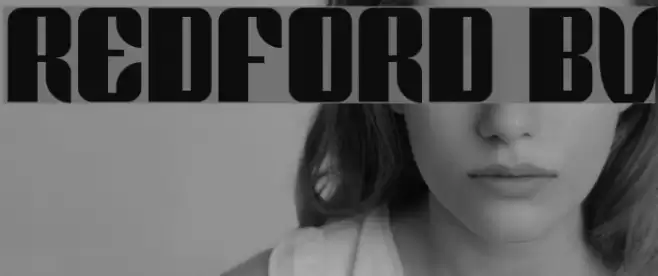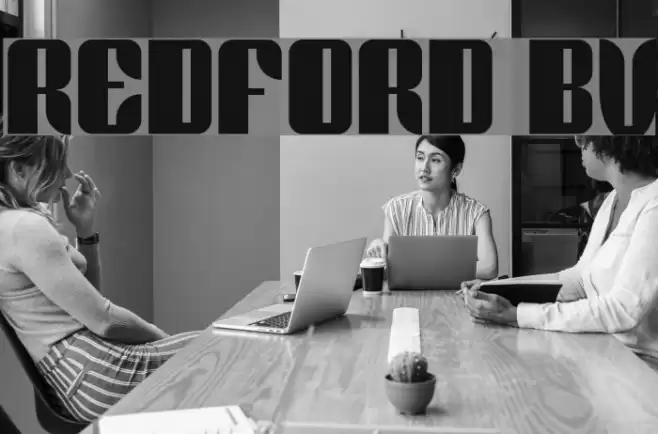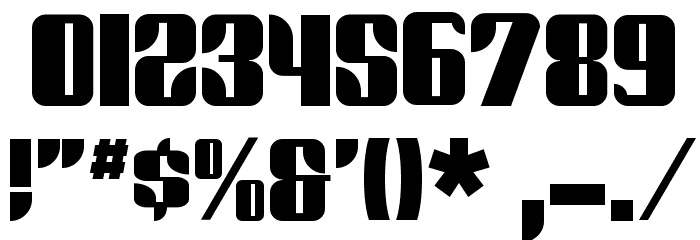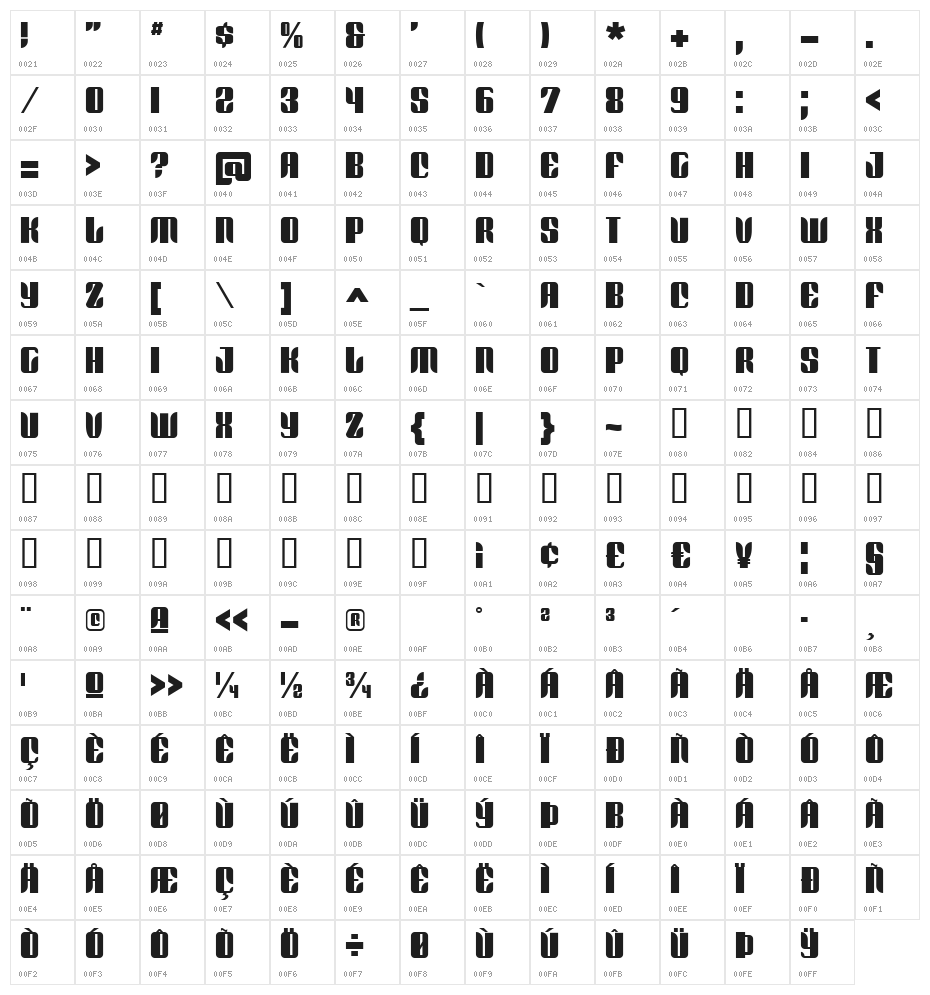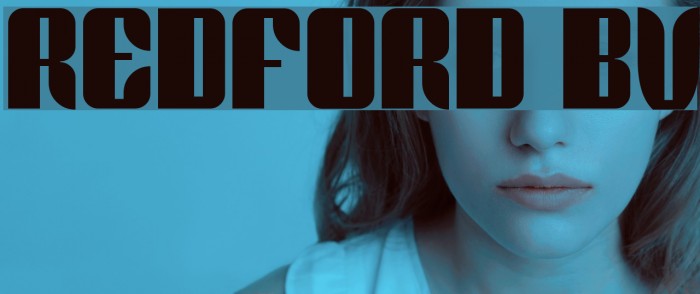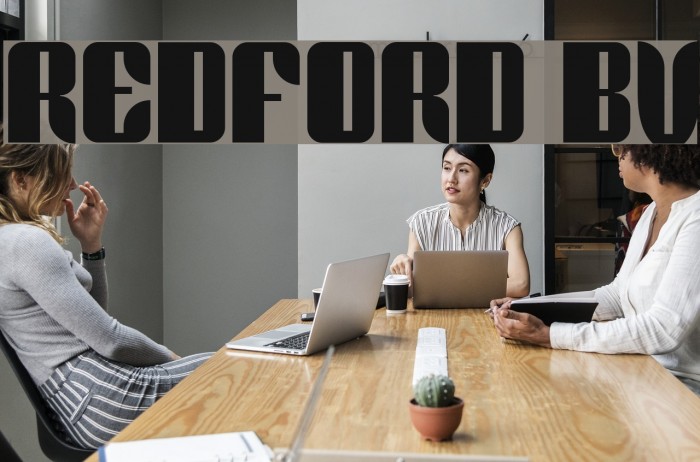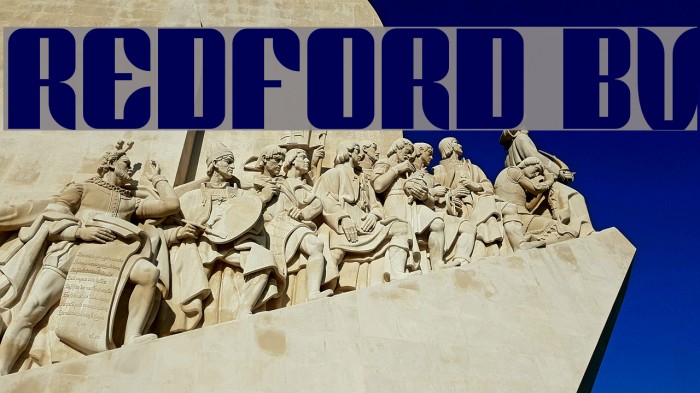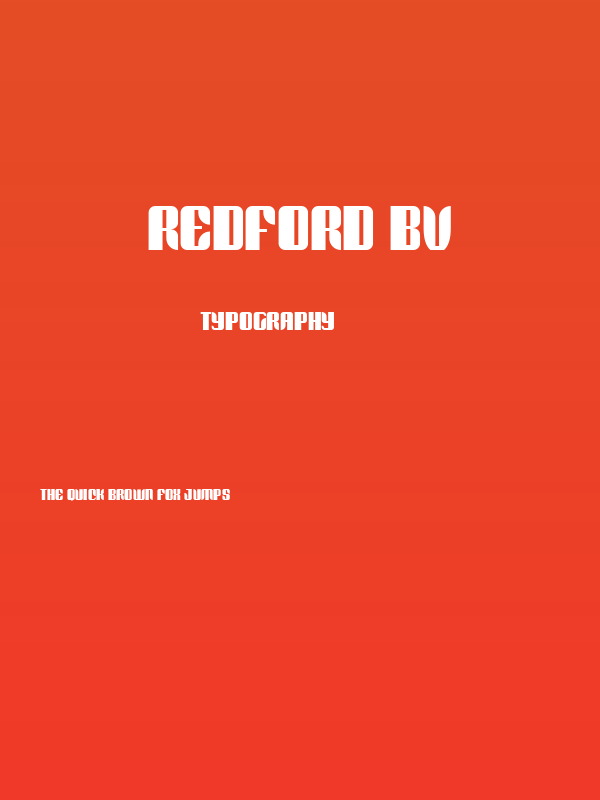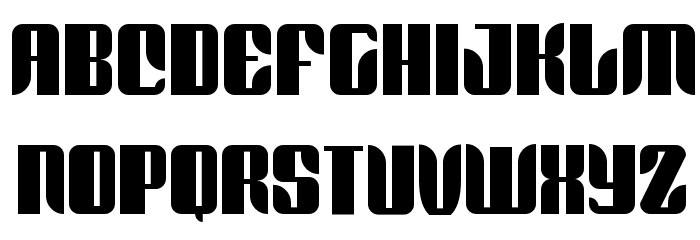
Redford BV Font
Redford BV Description
This font features a bold and striking design with a strong geometric influence. The characters are wide and blocky, with a distinct stencil-like appearance that creates a sense of modernity and strength. The uppercase letters are particularly impactful, with sharp angles and a uniform height that contribute to a cohesive look. The numbers and special characters maintain this bold style, ensuring consistency across all glyphs. The font's unique style makes it suitable for attention-grabbing headlines and logos, where a strong visual impact is desired.
A bold, geometric font with a stencil-like appearance, ideal for impactful designs from Decorative fonts.
- Proposed Projects: This font is perfect for branding projects, poster designs, and any creative work that requires a bold statement. It can also be used effectively in digital media, such as website headers and social media graphics.